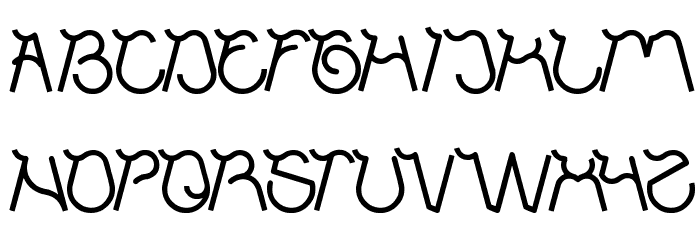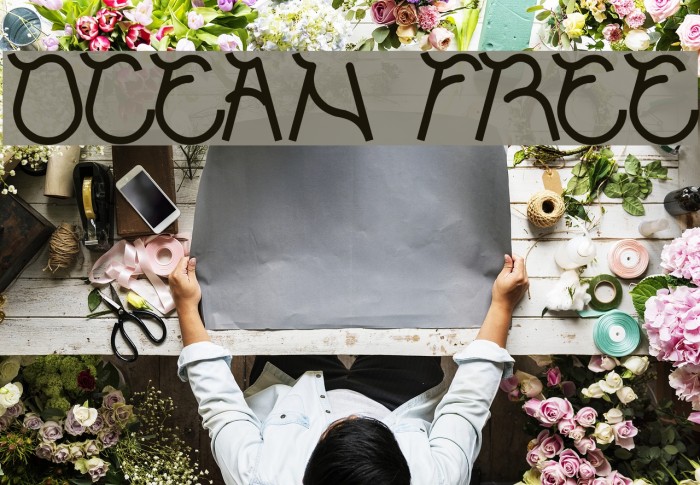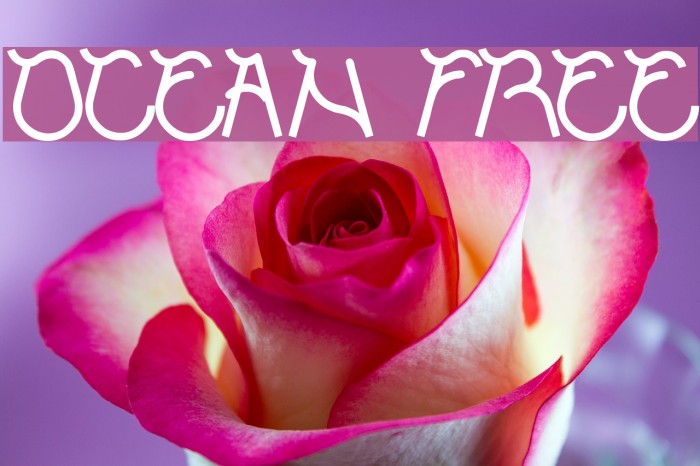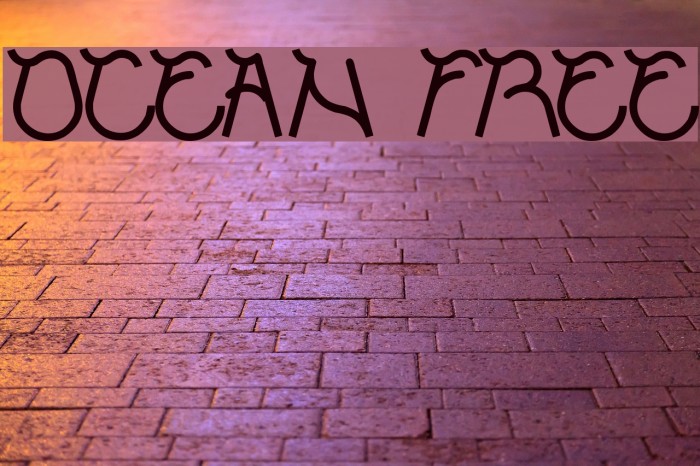
ocean free Font
This font features a unique and artistic design, characterized by its decorative and swirling elements that give each letter a distinct personality. The uppercase letters are embellished with curves and loops, creating a whimsical and playful appearance. The strokes are consistent in weight, providing a balanced look despite the intricate details. The font's style is reminiscent of ocean waves, with fluid and flowing lines that suggest movement and creativity. It's perfect for projects that require a touch of elegance and artistic flair.
A decorative font with swirling, wave-like elements and consistent stroke weight.
- Proposed Projects: Ideal for creative projects such as invitations, posters, and branding that require an artistic and whimsical touch.
- Use Case: Logos, Headlines, Artistic projects